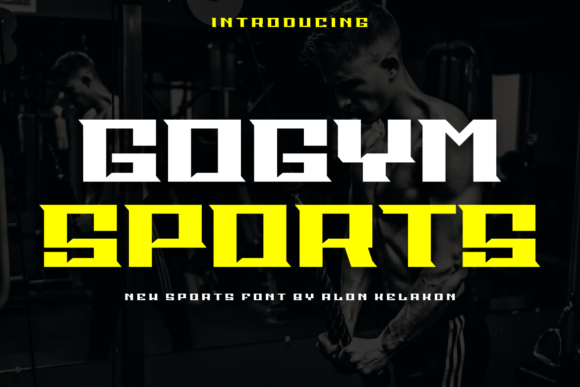
In the realm of typography, where letters dance and words take flight, there lies a font that captures the essence of athleticism, dynamism, and sheer coolness - Gogym Sports Font. This modern display font, crafted with meticulous precision by the visionary alonkelakon, is not merely a collection of characters; it's a symphony of style, a visual masterpiece that elevates your designs to new heights.
Meet Gogym Sports Font, a sans serif typeface that exudes energy, power, and a dash of playfulness. Its sleek lines and sharp angles evoke the fluidity of motion, mirroring the grace and agility of athletes in their element. Whether you're designing sports-themed posters, creating adrenaline-pumping branding for your fitness studio, or crafting captivating social media graphics, Gogym Sports Font is your ultimate weapon.
This remarkable font is a versatile chameleon, adapting seamlessly to a myriad of creative endeavors. Its inherent boldness commands attention, making it the perfect choice for headlines, logos, and titles that demand to be seen. Yet, its underlying elegance ensures that even in smaller sizes, Gogym Sports Font retains its readability and charm. Experience the thrill of crafting eye-catching posters, vibrant flyers, and captivating web designs that leave a lasting impression.
The true magic of Gogym Sports Font lies in its versatility. Whether you're a seasoned designer seeking to expand your typographic horizons or a creative enthusiast yearning to add a touch of dynamism to your projects, this font is your gateway to limitless possibilities. Unleash your imagination and let Gogym Sports Font ignite your designs with its infectious energy.
With Gogym Sports Font, you're not just acquiring a font; you're embarking on a creative journey where boundaries dissolve, and possibilities flourish. Its effortless cool factor transforms ordinary designs into captivating masterpieces, leaving your audience breathless.
In the realm of fonts, Gogym Sports Font reigns supreme, a champion that embodies the spirit of sportsmanship and creativity. It's a font that inspires, empowers, and propels your designs to greatness. Embrace the allure of Gogym Sports Font and unlock a world of limitless design possibilities.